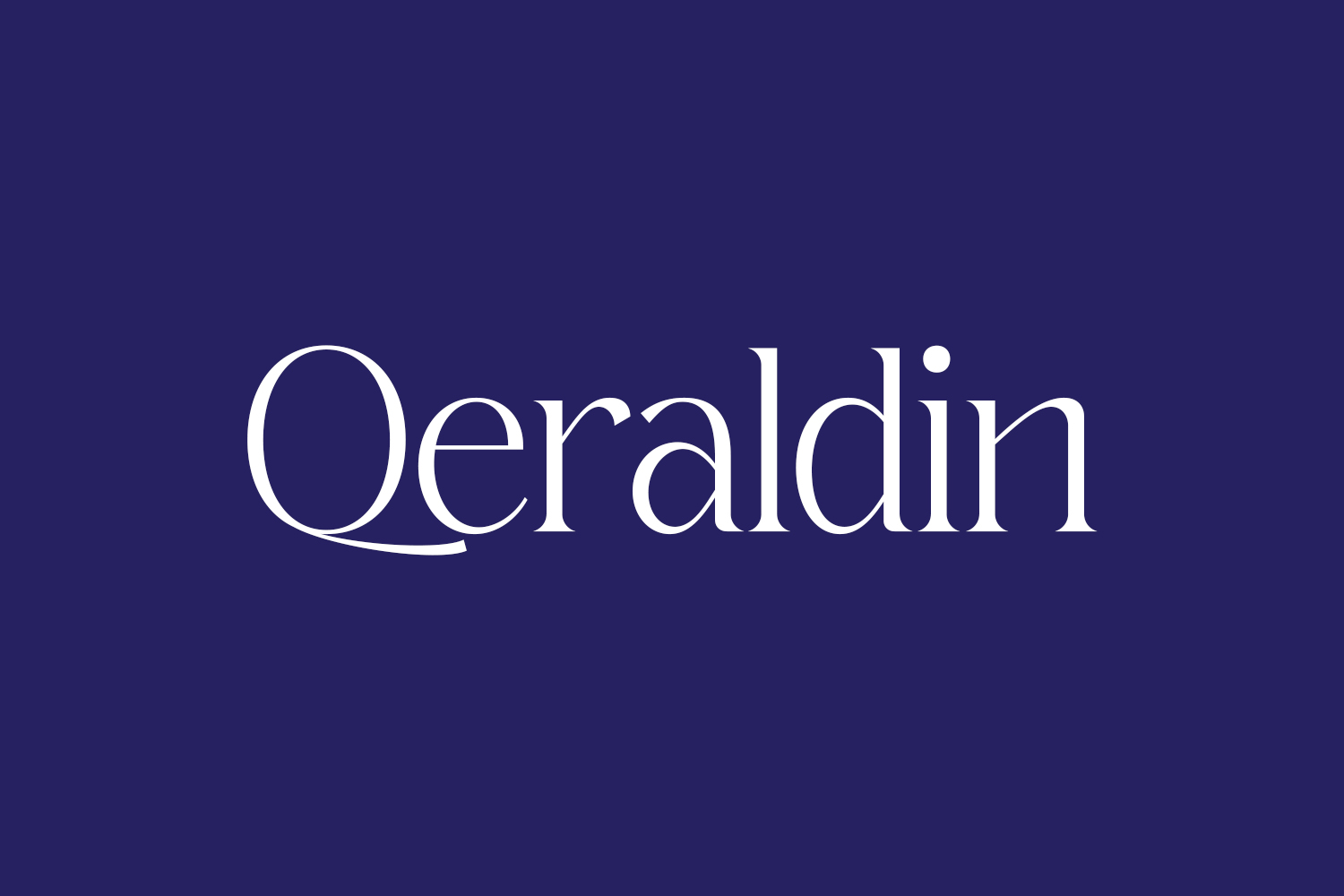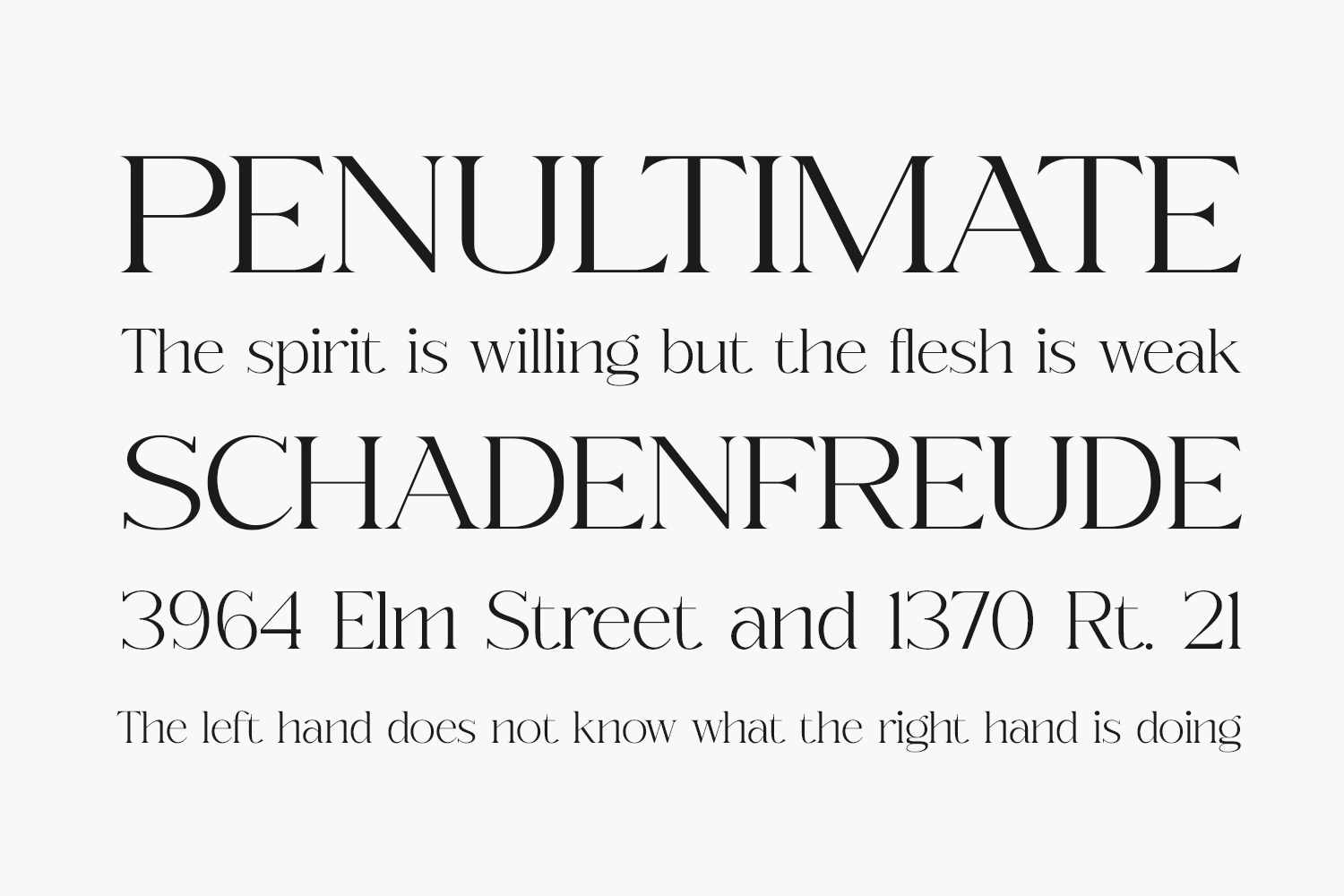
Qeraldin Free Font presents a blend of style and sophistication in its elegant serif form. With a contemporary twist, this font complements any design endeavor with freshness and finesse. Elevate your creative projects with Qeraldin and stand out effortlessly. Download the font for free if you need it for personal use or purchase the full version for commercial use.